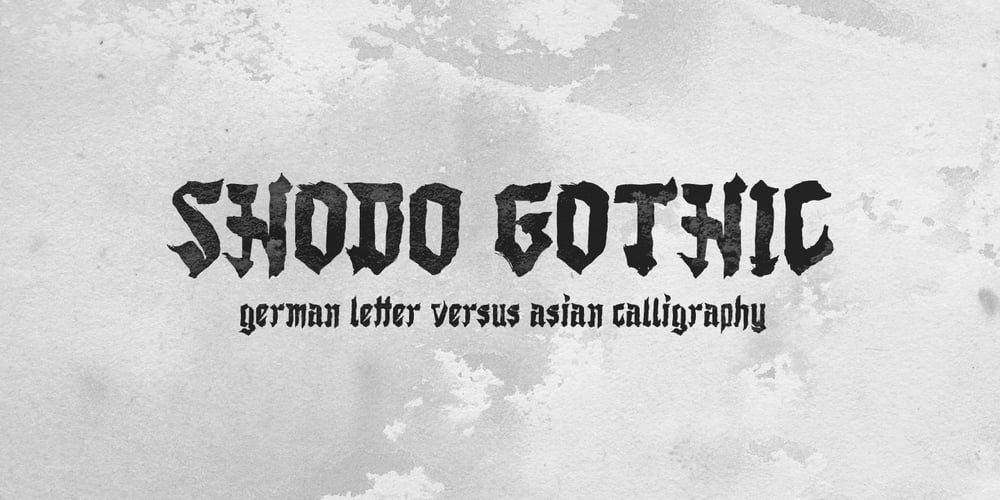
Shodo Gothic
Shodo Gothic font
Shodo Gothic Font Family was designed by Mirco Zuchowski and published by Mirco Zett. Shodo Gothic contains 1 styles and family package options. Shodo Gothic is a mixture of western black letter typography and asian calligraphy.